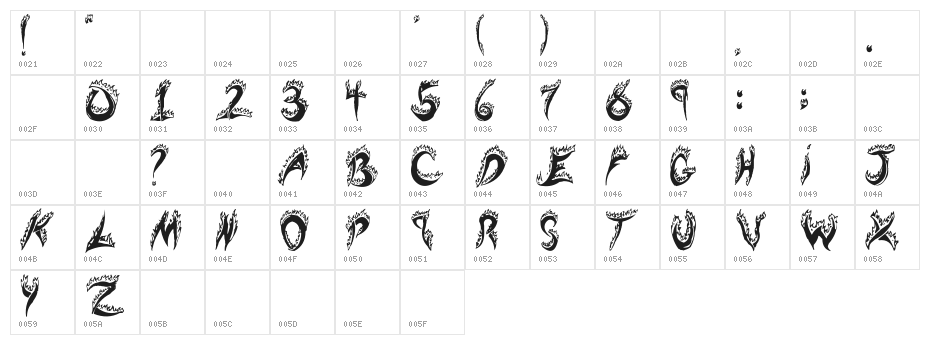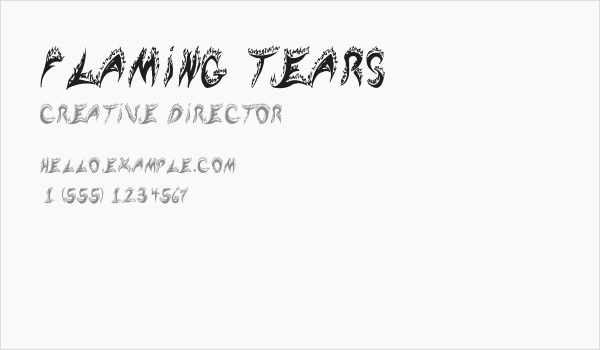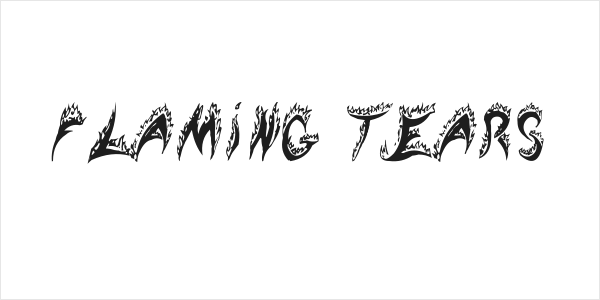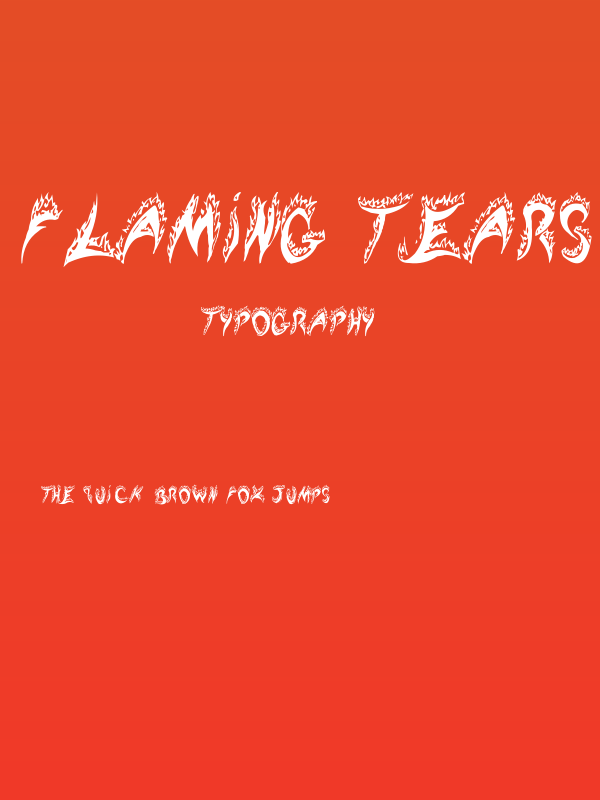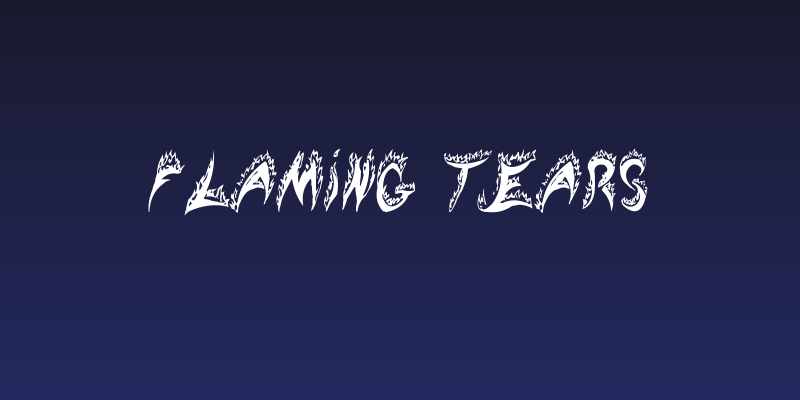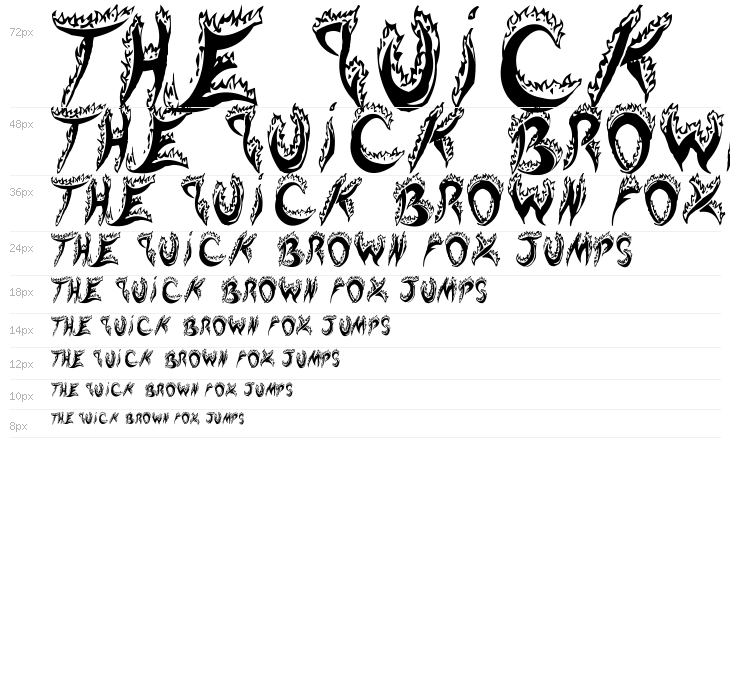
Flaming Tears Font
Flaming Tears Description
This font exudes a fiery and dynamic energy, with each character appearing to be engulfed in flames. The bold, jagged edges and intricate detailing give it a fierce and aggressive look, perfect for making a statement. The uppercase and lowercase letters maintain a consistent style, with flames licking upwards, adding a sense of movement and intensity. Numbers and special characters are equally dramatic, ensuring a cohesive design throughout. This font is ideal for projects that require a bold and eye-catching aesthetic.
Proposed ProjectsIdeal for music album covers, event posters, video game titles, and branding for extreme sports.